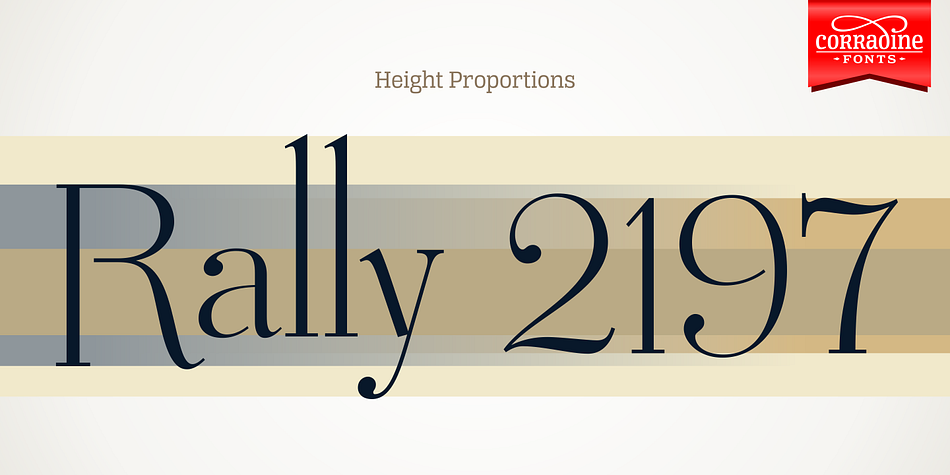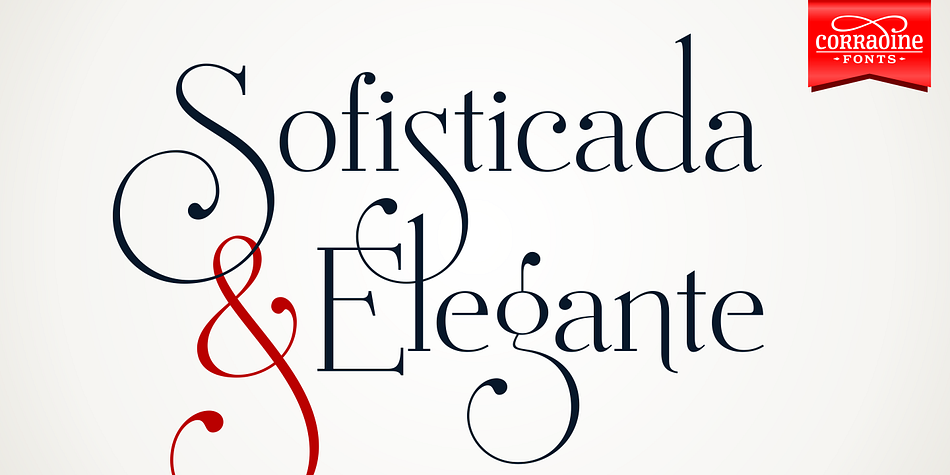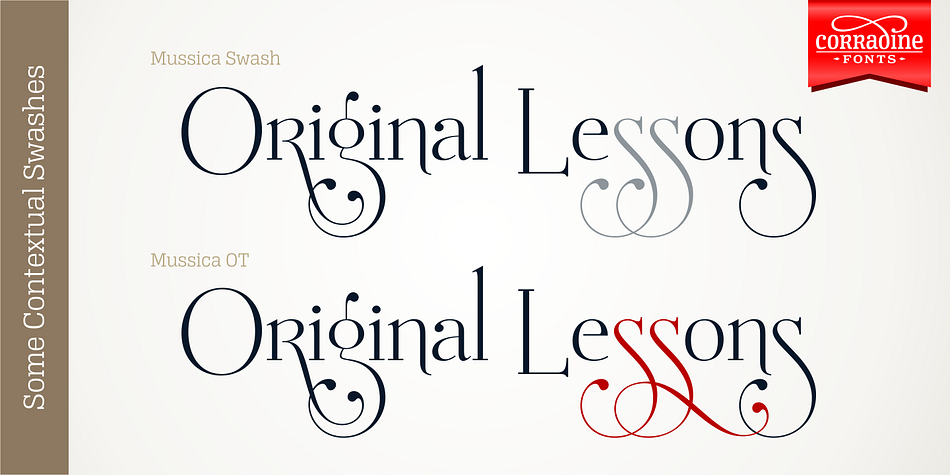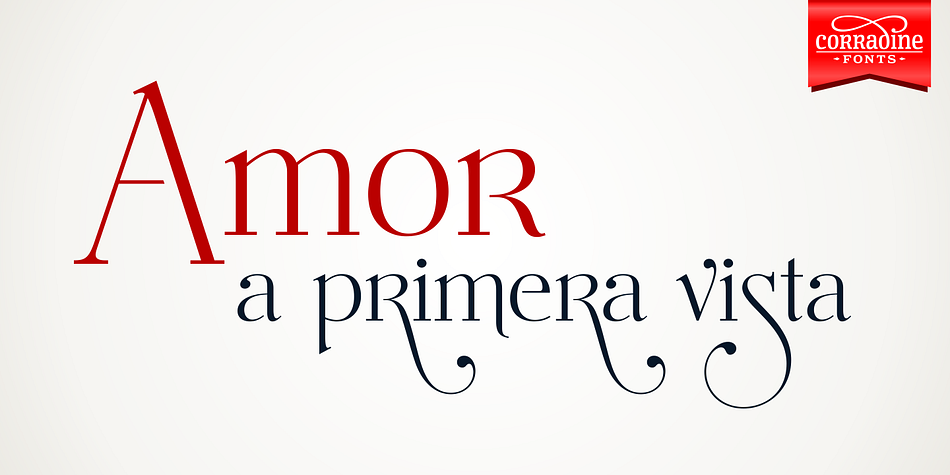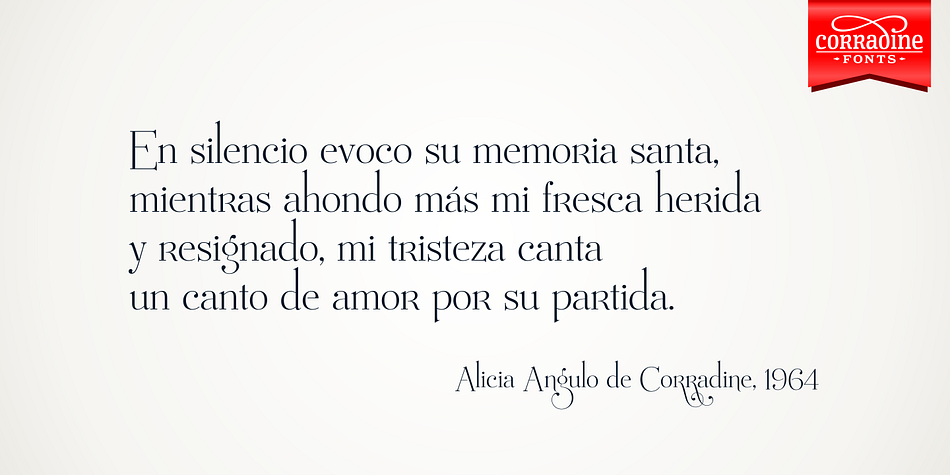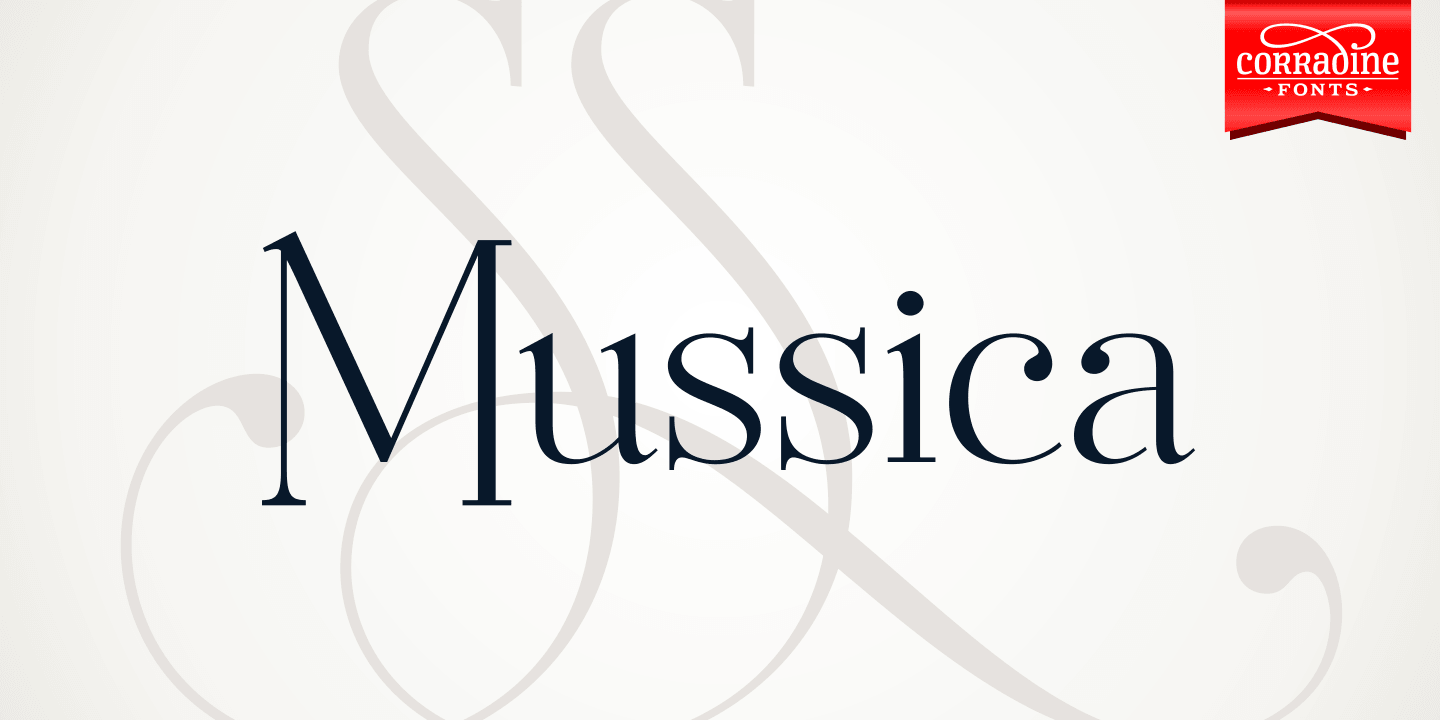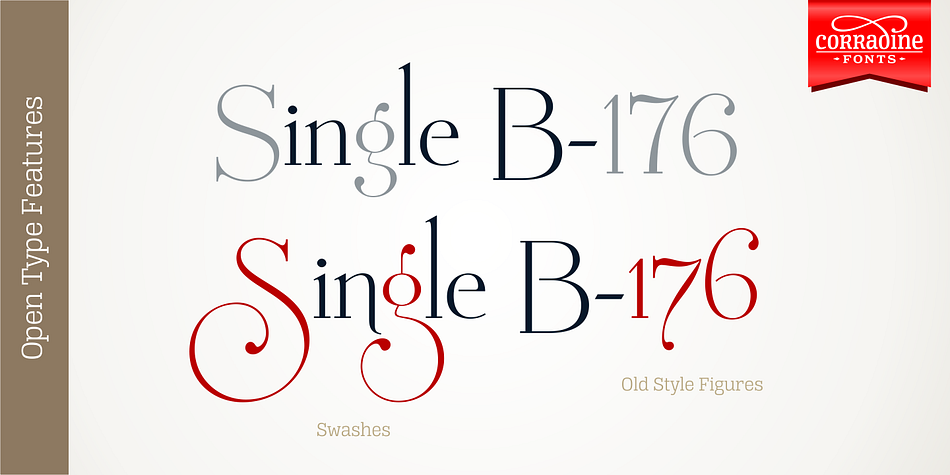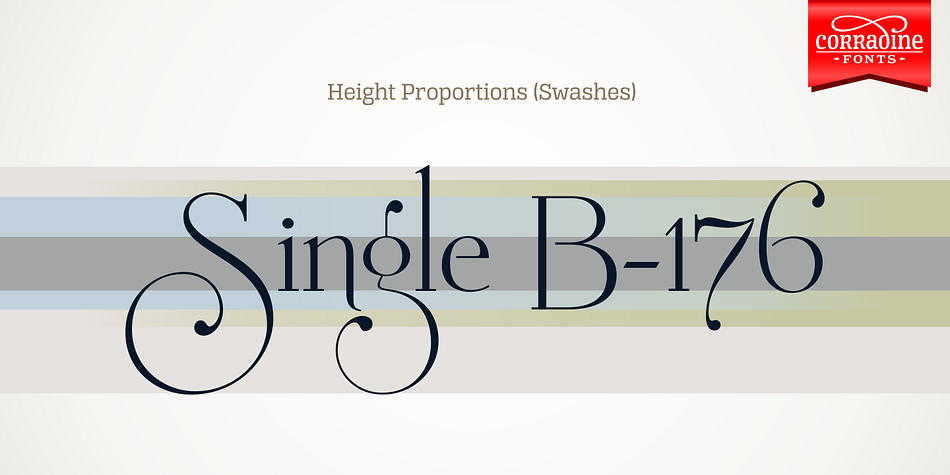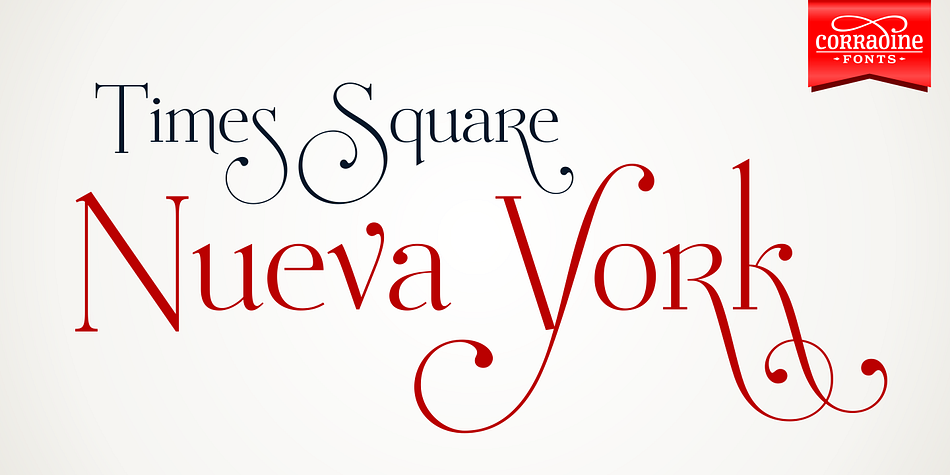
Mussica is a display serif font family. This typeface has three styles and was published by Corradine Fonts.
Designed by Manuel Corradine, Mussica is an ornamental hybrid font derived mainly of transitional and didone styles but including some script and uncial quirks too. Its proportions and measurements aren’t conventional giving a very special look.